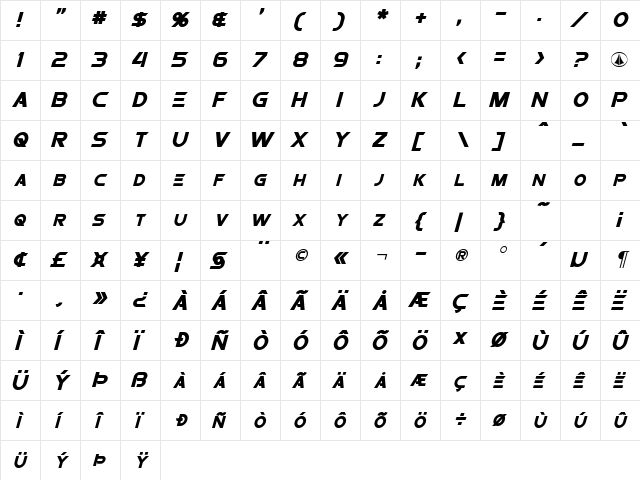
Protoculture Italic
| Foundry | Neale Davidson |
| Designer | Neale Davidson |
Design Context for Protoculture Typeface
Protoculture offers clean, dependable letterforms without strong stylistic allegiance, making it a practical choice for designers who need flexibility. The dynamic lean of this cut emphasises speed and emphasis in any layout.
Pro Tip: Use Protoculture for emphasis, pull quotes, and subheadings where its slanted energy can add rhythm to the layout.